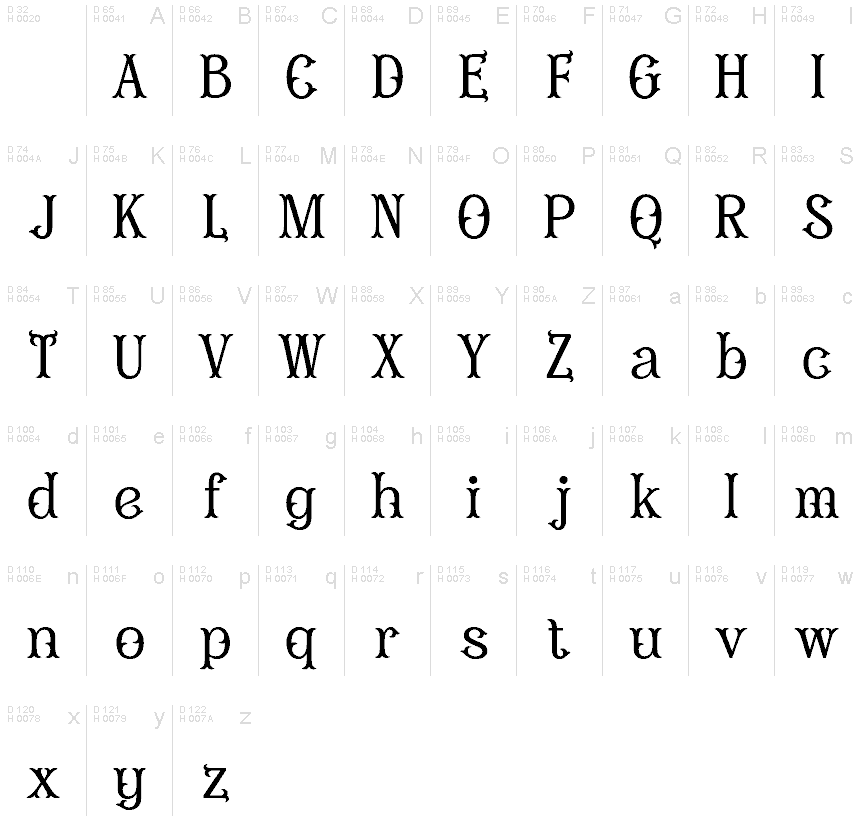
CS Visery Regular Demo
CS Visery font is a decorative serif font designed by Craft Supply Co. Decorative, with whimsical elements, it instantly gives off an aura of vintage-inspired work. Each character created within it is unique in its own way, whether visually or stylistically; the contrast strokes along with ornate detailing make this font a true masterpiece.